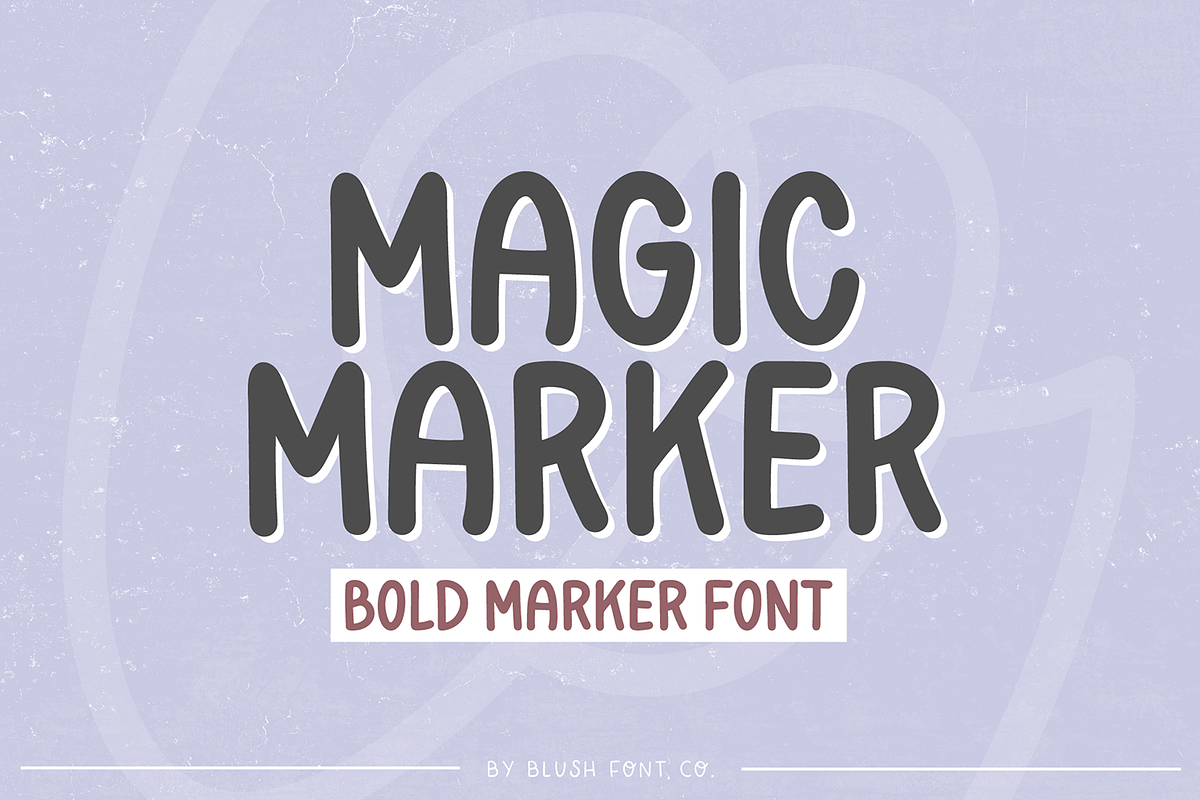
MAGIC MARKER School Handwriting Font Free Download
MAGIC MARKER School Handwriting Font Free Download is a fun, playful typeface that captures the charm of handwritten school notes. With its legible, slightly imperfect strokes, this font is perfect for educational materials, children’s books, posters, and other creative projects that require a friendly, approachable look. Its hand-drawn style brings a personal, warm touch to any design.